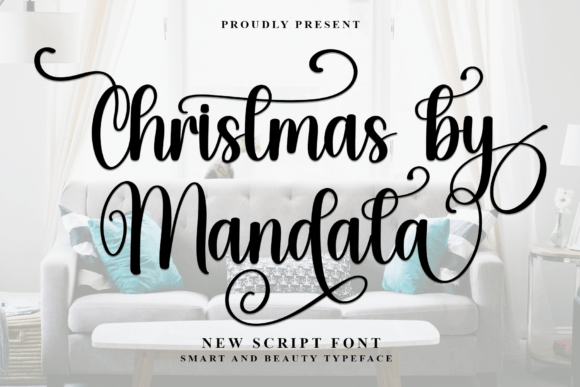
Deck the Halls with Style: Christmas by Mandala Font
As the holiday season approaches, I find myself rummaging through my design stash, searching for the perfect font to capture the magic of Christmas. And then, it hits me – the perfect blend of elegance and playfulness that screams holiday cheer. For designers, finding the right font can be a daunting task, but with the right tool, the possibilities are endless.
Enter Christmas by Mandala Font, a stylish handwritten font that exudes a contemporary atmosphere and impeccable form. Inspired by the timeless classic calligraphy, this font is designed to elevate your projects and make them truly special. With its balanced and varied design, you can create stunning visuals that will leave your audience in awe.
- Unique Characteristic: The font includes intricate, hand-drawn mandala designs and patterns, adding a touch of elegance and festivity to holiday-themed projects.
- Font Style: Script, Handwritten
Designer Review: Christmas by Mandala Font
Christmas by Mandala Font is a delightful, festive font that’s perfect for the holiday season. I was immediately drawn to its ✨ playful and whimsical vibe, which is sure to add a touch of magic to any design project. The font’s intricate, hand-drawn details and bold lines make it a great choice for titles, headings, and other prominent text elements.
The font’s versatility is another major plus. It can be used for a variety of designs, from children’s books and gift tags to advertising materials and social media graphics. I particularly appreciate how the font’s ✨ unique aesthetic can be dressed up or down to suit different design styles.
- ⚠️ Limited character set: The font’s character set is not extensive, which may limit its use in longer texts or for specific languages.
- ⚠️ Font size limitations: The font’s intricate details may become distorted or difficult to read at smaller font sizes.
Overall, Christmas by Mandala Font is a wonderful addition to any designer’s toolkit. While it may have some limitations, its unique charm and versatility make it a great choice for holiday-themed designs. With a little creativity and planning, you can use this font to create truly special and memorable designs that will delight your audience.